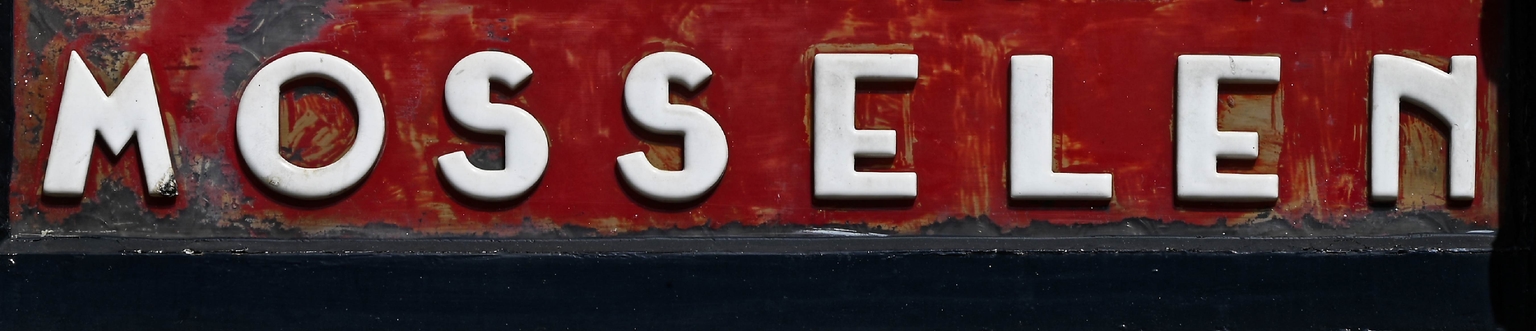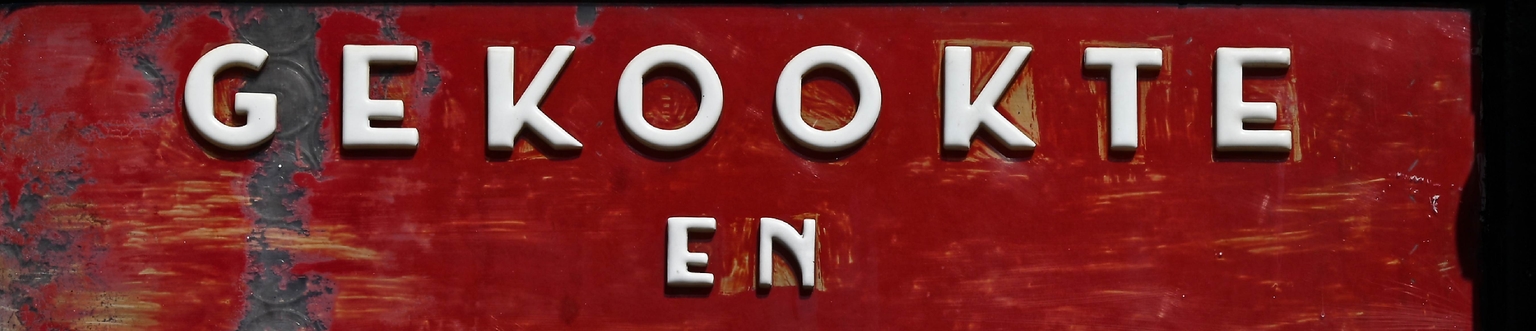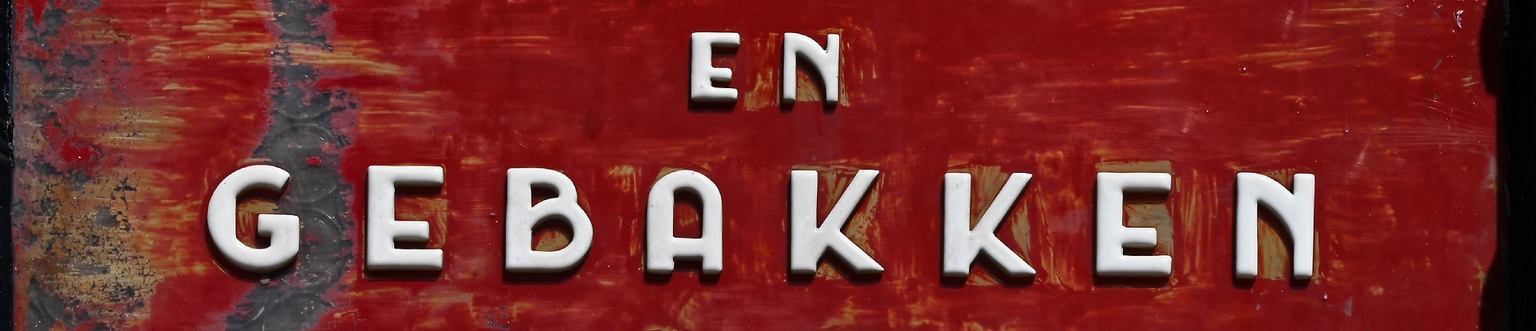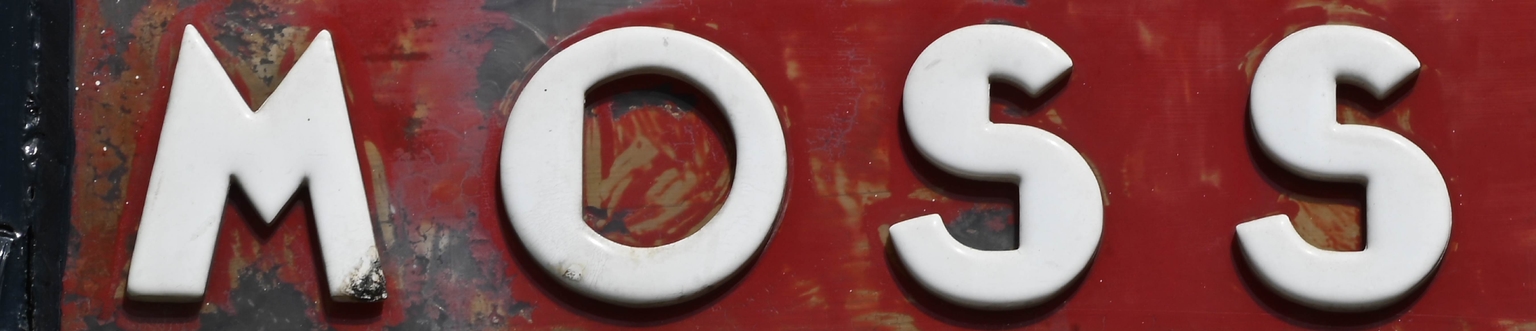
Mossel
Mossel is a Deco-style display typeface designed by Fabian Kolar and released through Brutal Types. Its inspiration comes from the vintage lettering found above the entrance of Café Steijn, located at Nieuwe Binnenweg 345B in Rotterdam. With its sleek curves and geometric flair, the sign is a rare example of interwar commercial lettering that has withstood the test of time.
When invited to collaborate with Brutal Types, Fabian was given access to the foundry’s archive of vernacular Dutch signage. Among the many gems, it was the photograph of Café Steijn’s façade that immediately captured his attention.
With Mossel, Kolar has transformed this overlooked piece of visual heritage into a contemporary typeface that’s ideal for editorial use, signage, and branding projects seeking a dose of historical elegance and character. This new typeface features numerous characteristics that set it apart from the more commonly used typefaces in this genre, offering designers a fresh yet authentically rooted alternative within the Deco tradition.